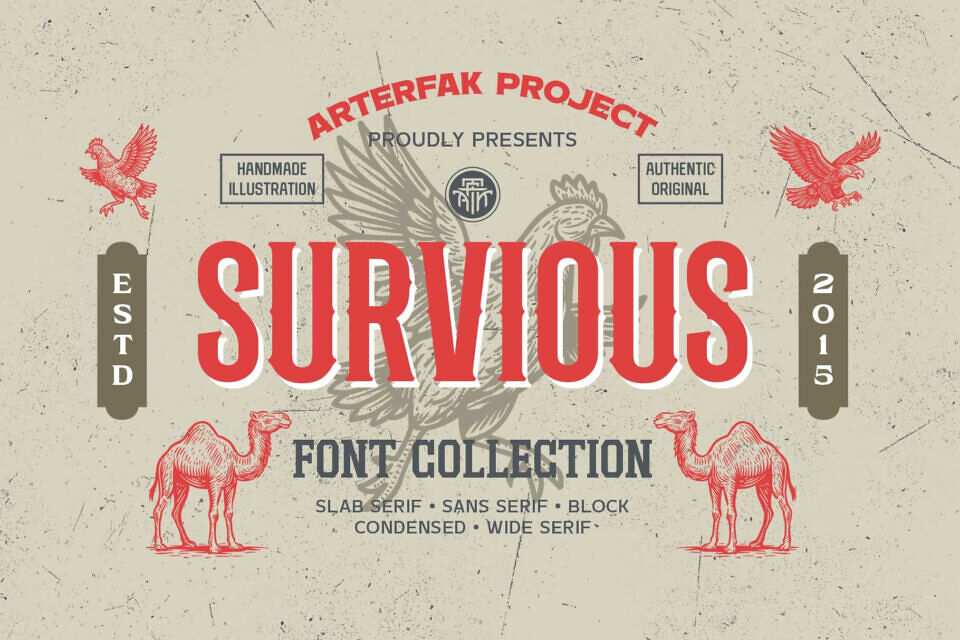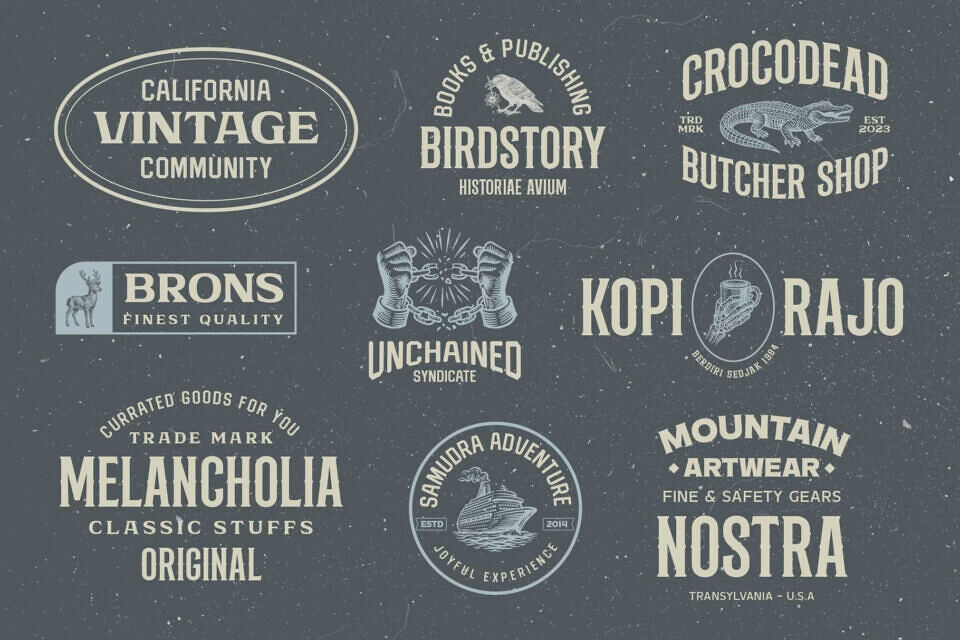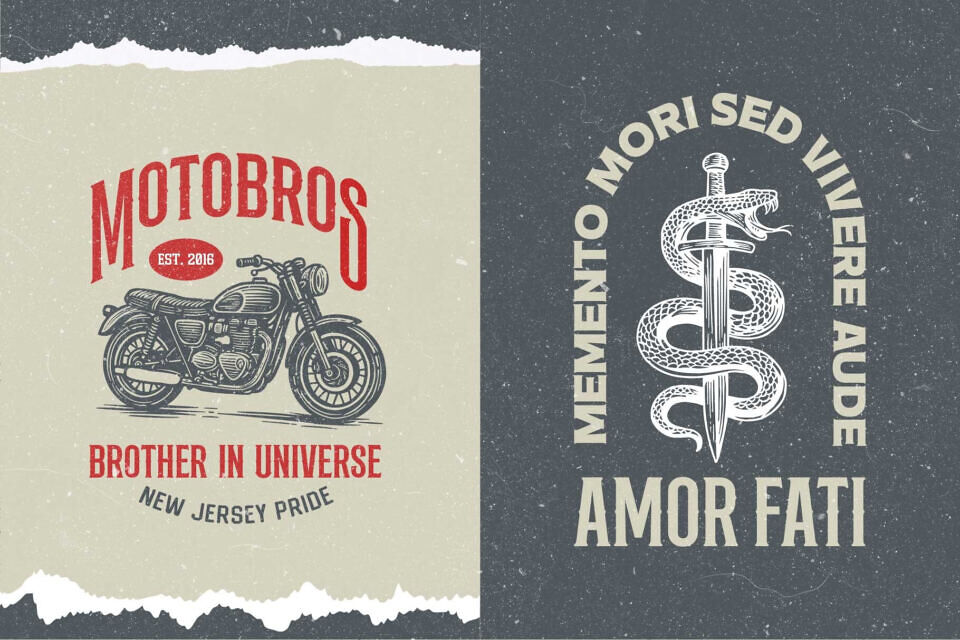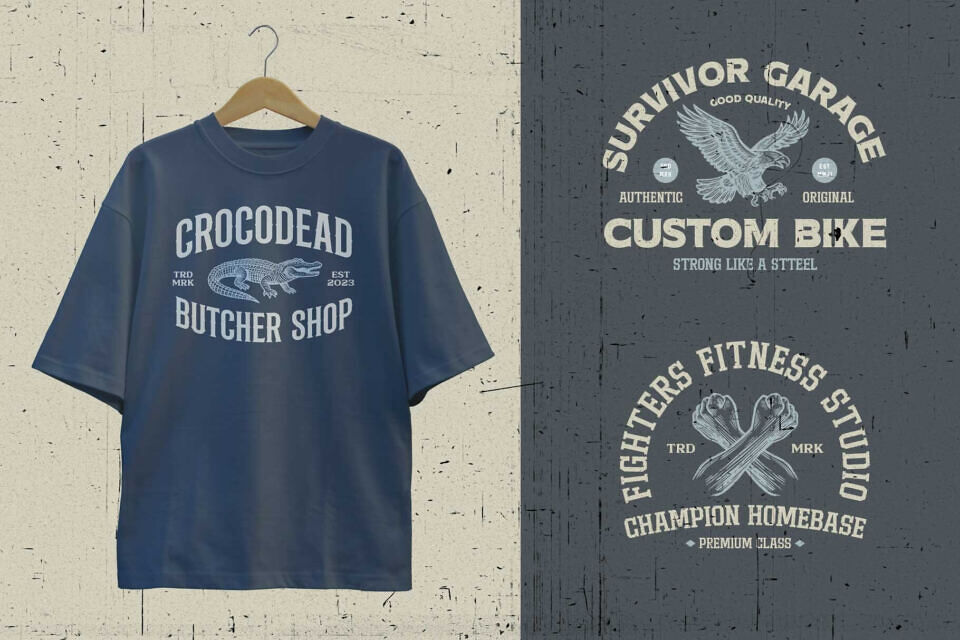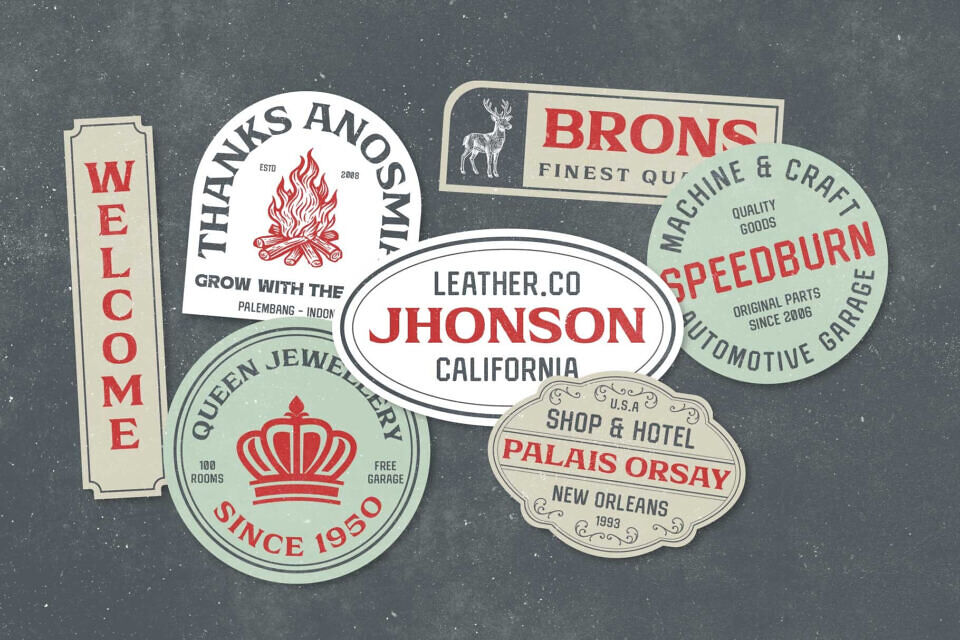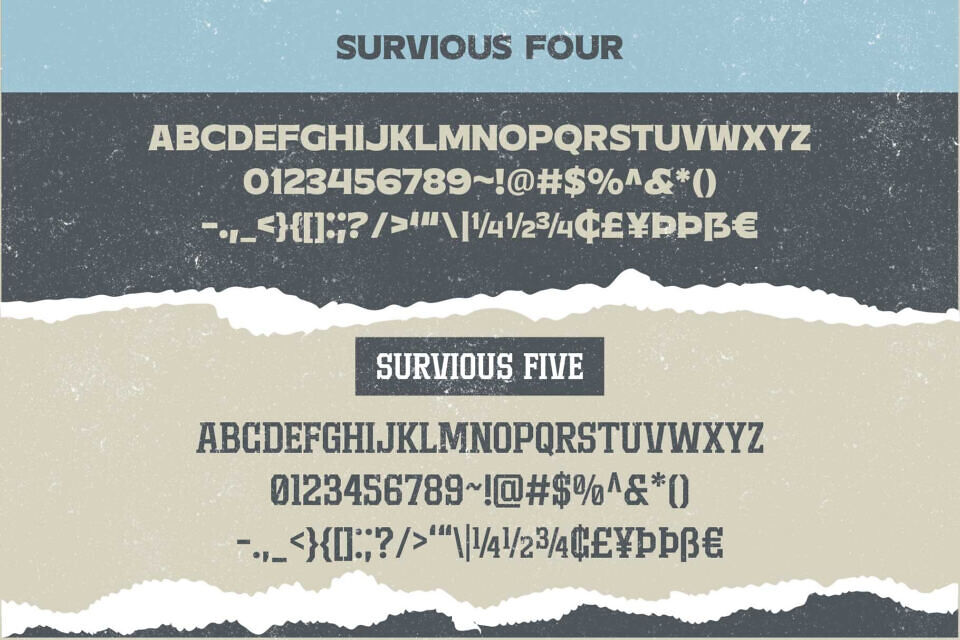
Survious Font
Introducing Survious, a Vintage Font Set. Inspired by vintage labels and old-school illustrations, this type family blends classic industrial style with strong versatility. It includes Sans Serif, Slab Serif, Wide Serif, Condensed Serif, Decorative, and Block styles that work seamlessly together.
Perfect for labels, posters, packaging, sign painting, vintage logos, and apparel. Survious pairs beautifully with illustrations, badges, and icons—making it easy to create strong, nostalgic visuals with a modern edge.